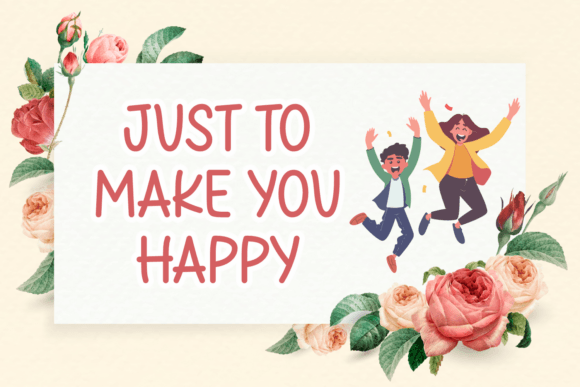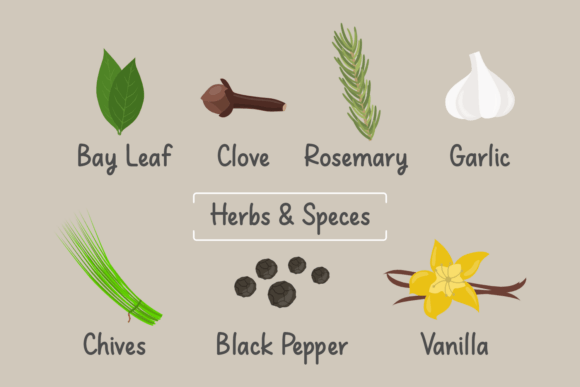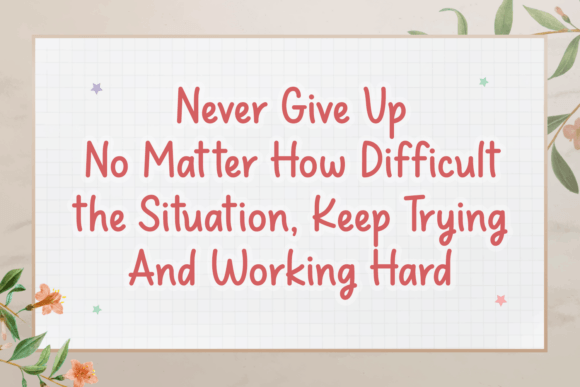
Introduction to Simple Check Font
Imagine you’re planning a surprise birthday party for a close friend. You’re in charge of creating the invitations, and you want them to be unique and special. You start brainstorming ideas, and suddenly, you remember a beautiful handwritten font you once saw online. That font is none other than the Simple Check Font, a friendly and playful script that adds a personal touch to any design.
As a designer, you know how crucial it is to have a reliable design resource like the Simple Check Font. With its clear and easy-to-read letters, this font is perfect for creating invitations, notes, or any project that requires a warm and inviting feel. And the best part? You can download it for free, making it an accessible high-quality design element for your creative projects.
Key Features of Simple Check Font
- High-quality design resource for various creative projects
- Simple, yet distinctive design makes it perfect for checking boxes, forms, and other interactive elements
- Perfect for web designers, graphic designers, and digital artists working on high-quality creative projects
Honest Review: Simple Check Font
I recently stumbled upon the Simple Check Font, and I must say, it’s been a game-changer for my creative projects. This free download has been a reliable design resource, providing a high-quality checkmark design that I can use across various mediums.
- What works well: ✨ The Simple Check Font is highly customizable, making it perfect for logos, icons, and other graphic elements. The transparent background option is a great feature, allowing me to easily integrate it into any design.
- What works well: ✨ The font is incredibly versatile and can be used in both digital and print media, making it a great addition to my design arsenal.
However, there are a few limitations to consider: ⚠️ The font is only available in a limited range of sizes, which may not be ideal for complex designs that require multiple font sizes.
Overall, I’m thoroughly impressed with the Simple Check Font. It’s a high-quality design resource that has become a staple in my creative workflow. The free download option is a huge plus, making it accessible to designers of all levels.
Whether you’re working on a logo design, infographic, or other creative project, the Simple Check Font is definitely worth checking out.
Simple Check Font
Simple Check Font is a high-quality design resource that can be used in various creative projects. To get the most out of it, consider the following tips:
- Use it in combination with other design elements to create a cohesive look.
- Experiment with different font sizes and colors to achieve the desired effect.
Simple Check Font is commonly used in:
- Graphic design projects.
- Print materials such as business cards and brochures.
- Digital projects such as website headers and social media graphics.